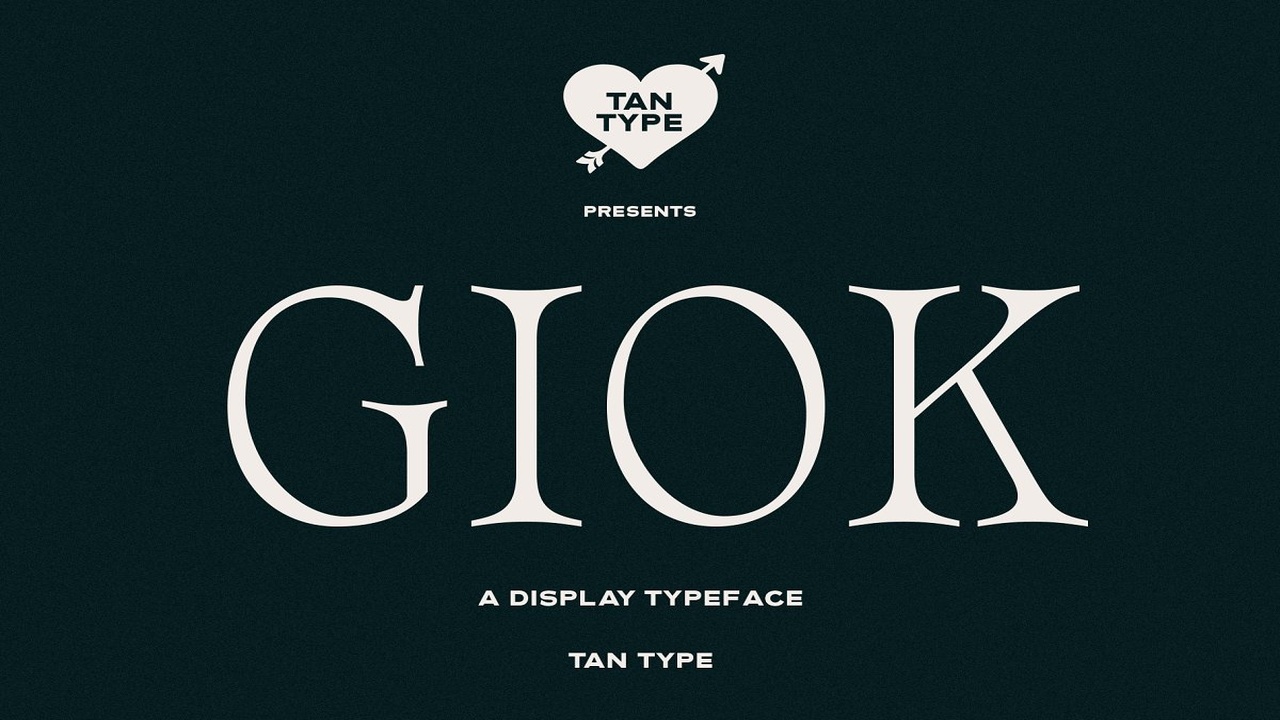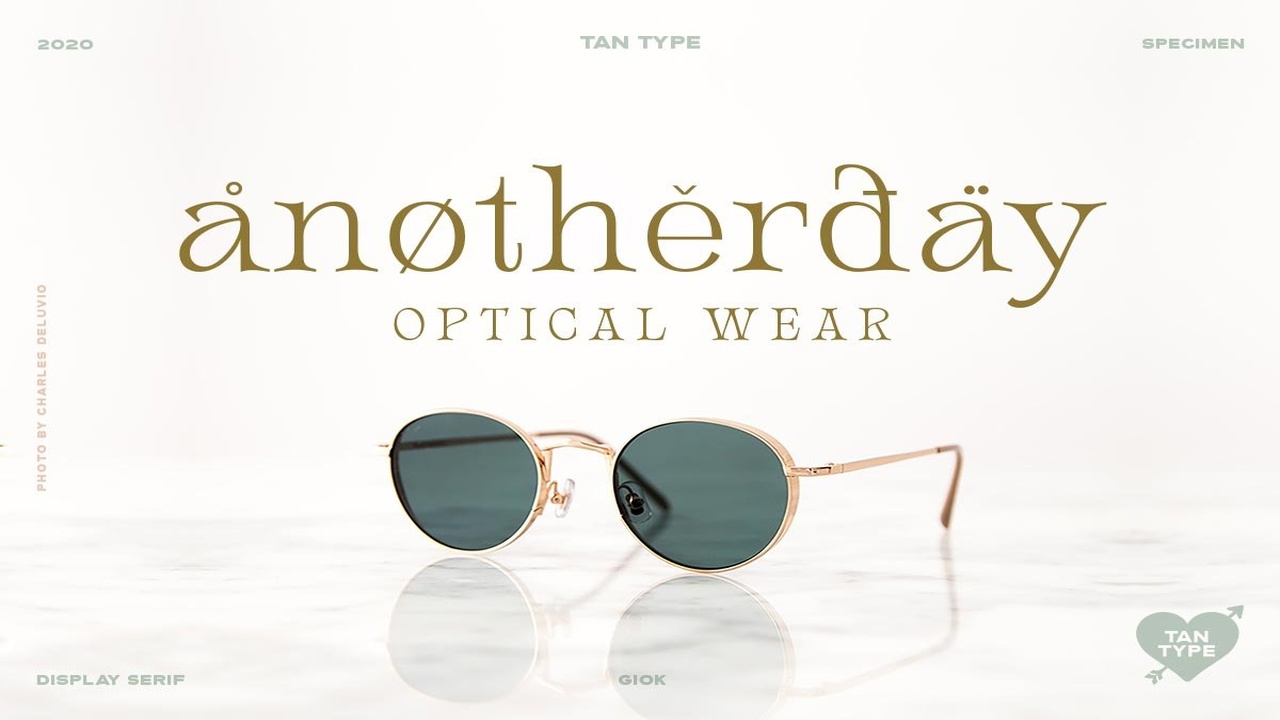
About the TAN GIOK Font
GIOK is an elegant typeface with quirky curved serif, It is perfect for branding, headline, and anything that needs some simple elegance, limited multilingual support, free future updates, customer support, please contact: tantypeco@gmail, com